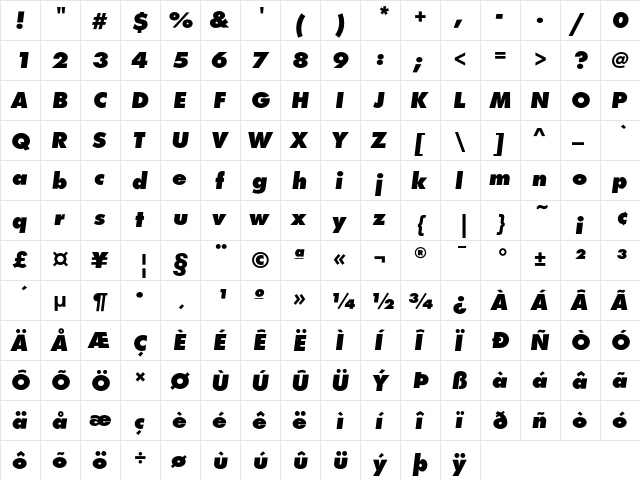
FuturaEF ExtraBoldObl
Design Context for FuturaEF Typeface
FuturaEF channels digital-age aesthetics through its sharp, structured letterforms — ideal for brands that want to signal innovation. The heavy weight commands attention and anchors typographic hierarchies.
Pro Tip: Use FuturaEF in combination with a neutral sans for body text. Let it define the brand voice in headlines while keeping reading comfortable elsewhere.